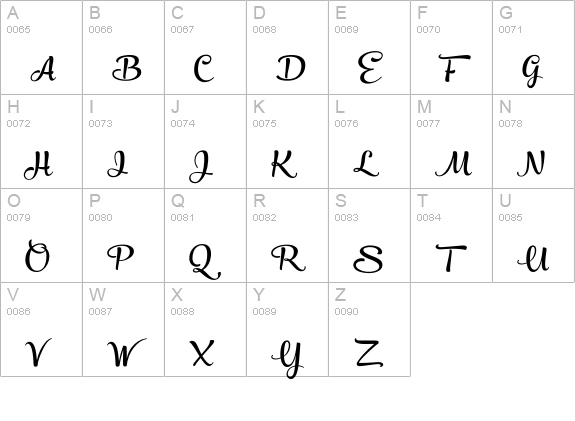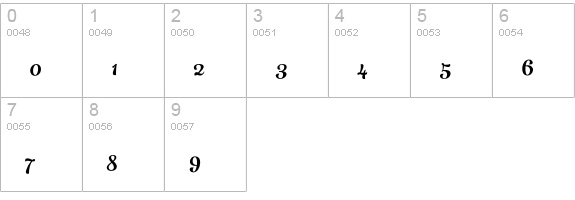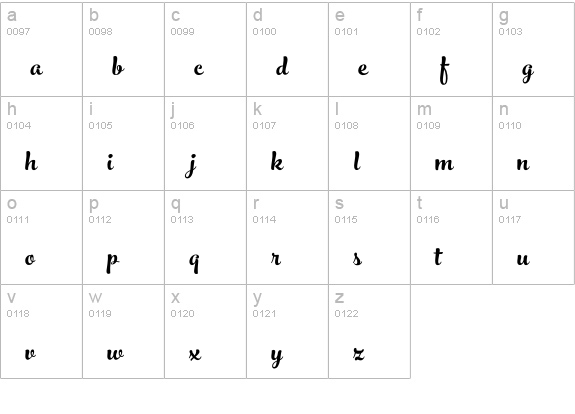
The Peaches and Cream font is a delightful and charming display typeface that exudes a sense of sweetness and elegance. With its soft curves and playful style, this font is perfect for adding a touch of whimsy to your projects. Whether you're creating invitations, branding materials, or social media graphics, Peaches and Cream will bring a fresh and inviting feel to your designs. The best part? Peaches and Cream font is available for free download at FontsMarket.com. This means you can easily access this lovely typeface and incorporate it into your creative endeavors without any cost. So why wait? Add a touch of sweetness to your designs today with Peaches and Cream font.